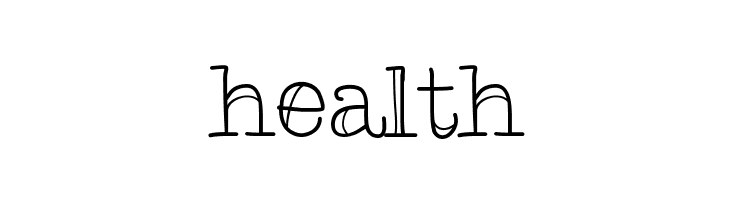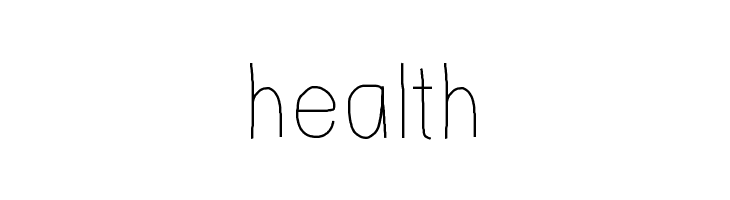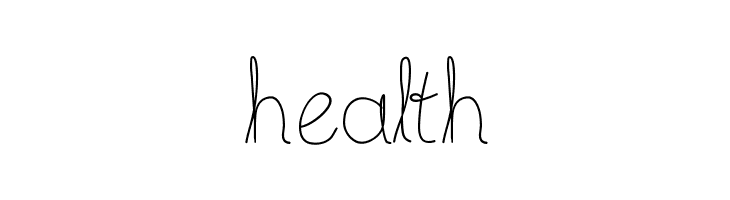
SayingGoodbye Font
A playful, bold outline font with rounded edges and uniform strokes.
LewisBlues Font
A tall, narrow font with a whimsical and modern style.
TypeMeTwo Font
A playful, whimsical serif font with curly serifs and a friendly appearance.
VincentStreet Font
A playful, hand-drawn font with decorative uppercase and clean lowercase letters.
CompletelyScripted Font
A whimsical script font with flowing, interconnected letters and playful loops.